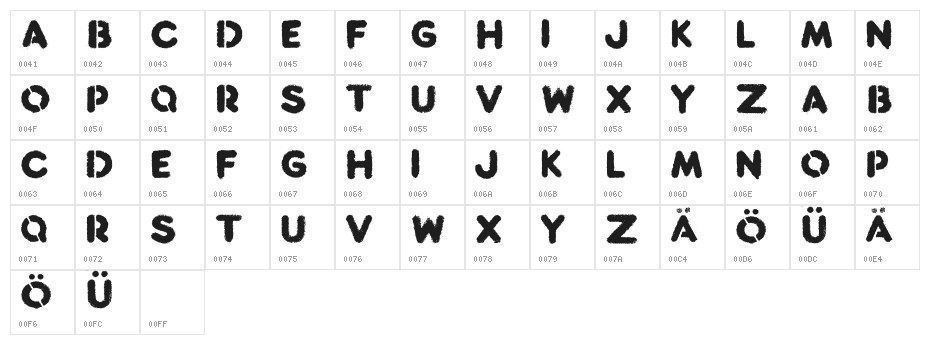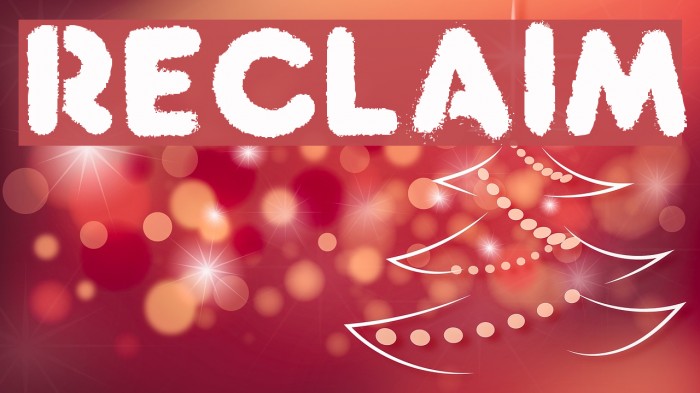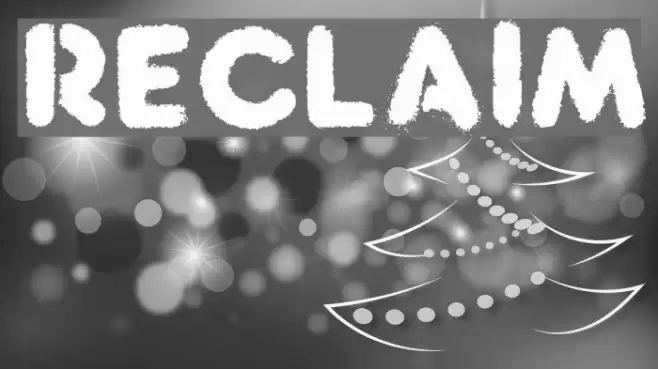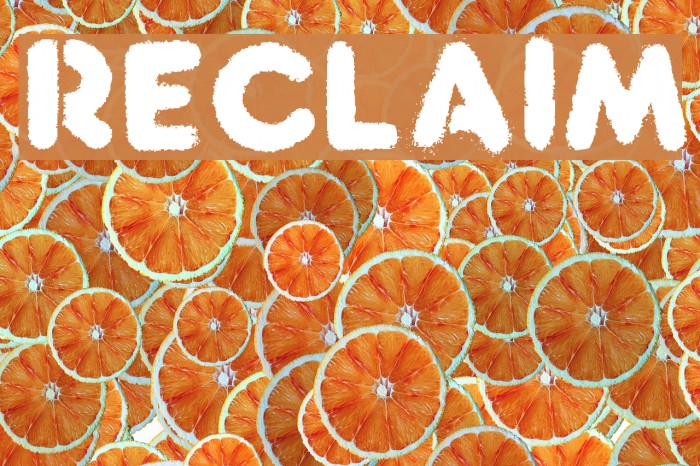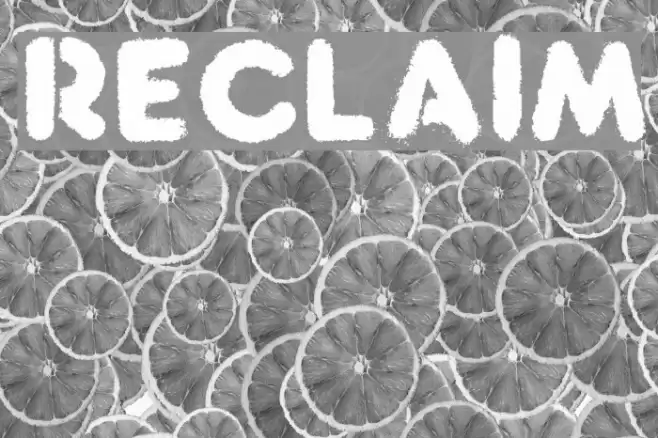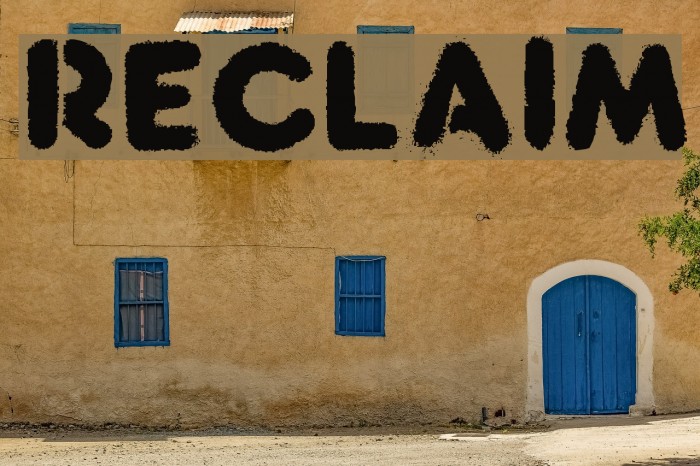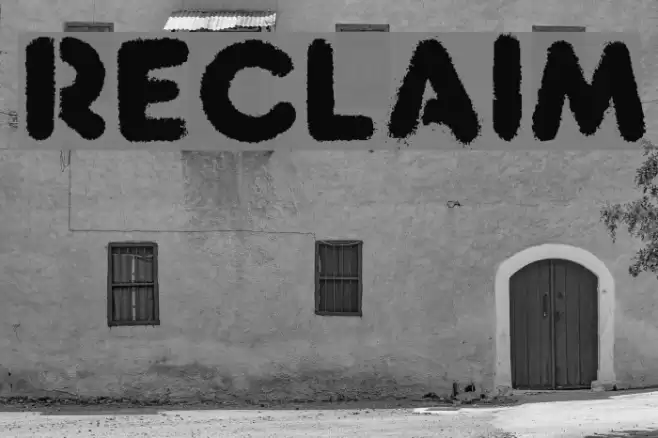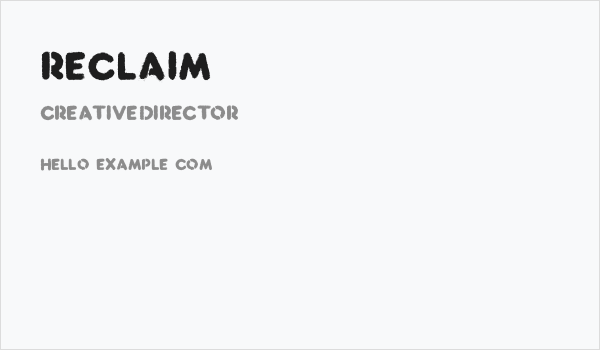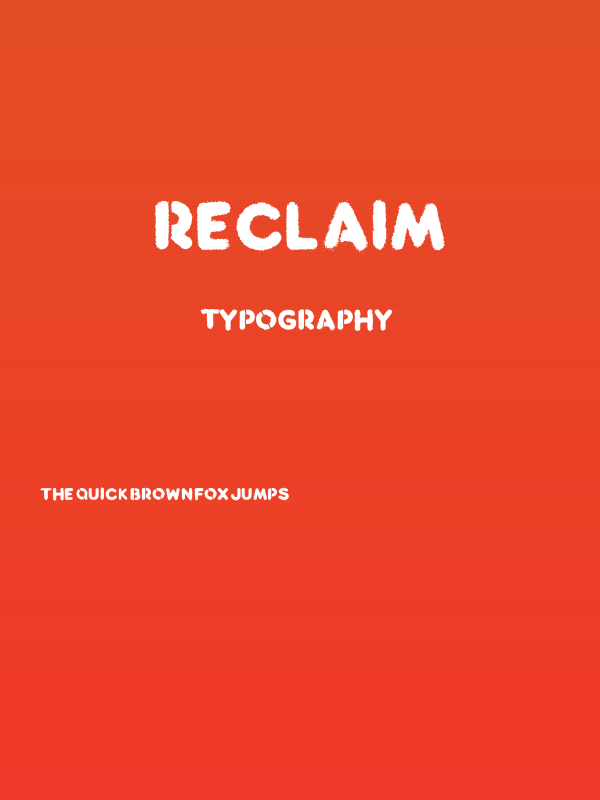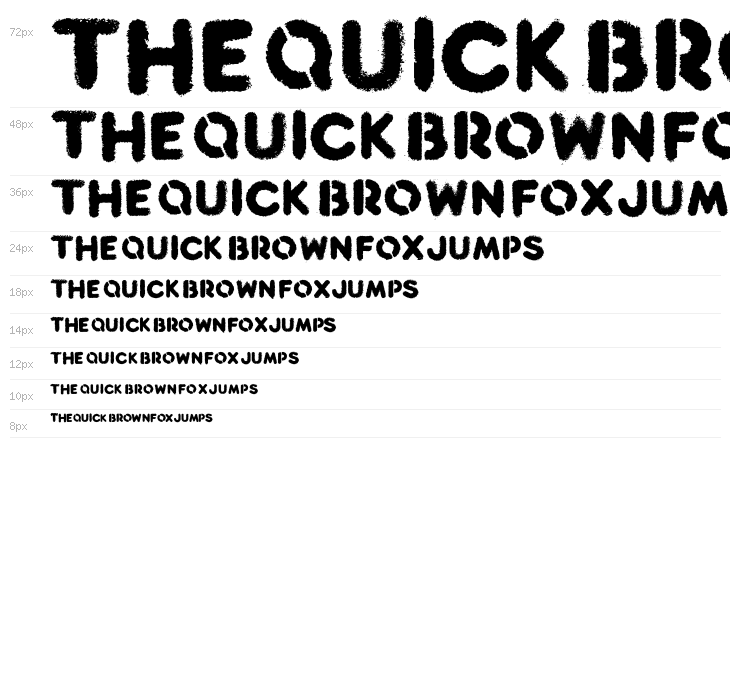
Reclaim Font
Reclaim Description
This font features a bold, textured style with a distressed appearance, giving it a rugged and organic feel. The characters are uniformly bold, with rounded edges and a slightly irregular outline that adds to its handcrafted look. The texture resembles a stippled or spray-painted effect, which enhances its visual interest and depth. This font is highly legible and impactful, making it suitable for attention-grabbing designs. The uppercase letters are consistent in height and width, maintaining a balanced and cohesive appearance across the alphabet.